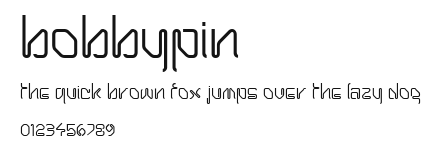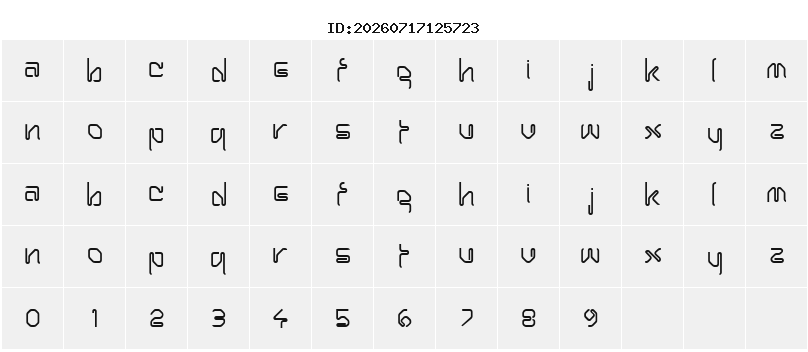
• Font Name: BobbyPin
About BobbyPin.ttf
BobbyPin.ttf is a modern, elegant sans-serif font designed for ultimate readability and visual harmony. Perfect for branding, headlines, web design, and print materials.